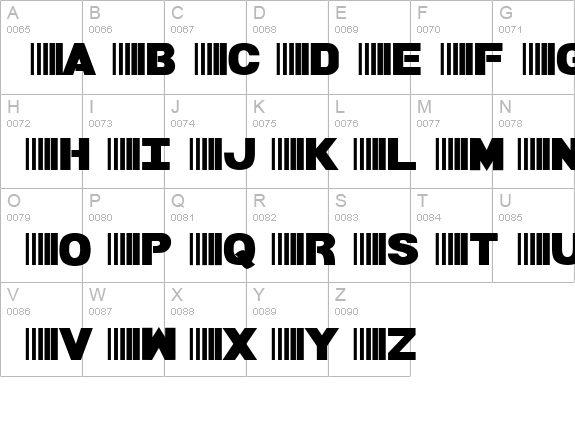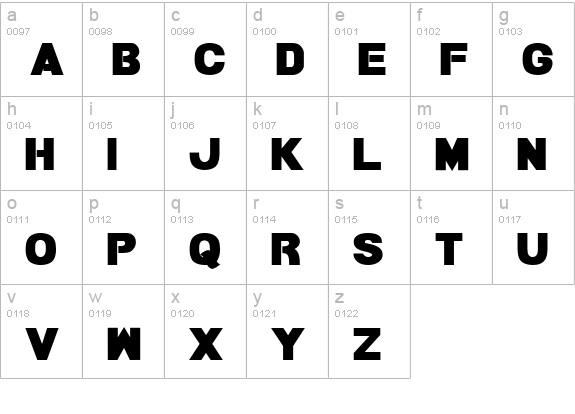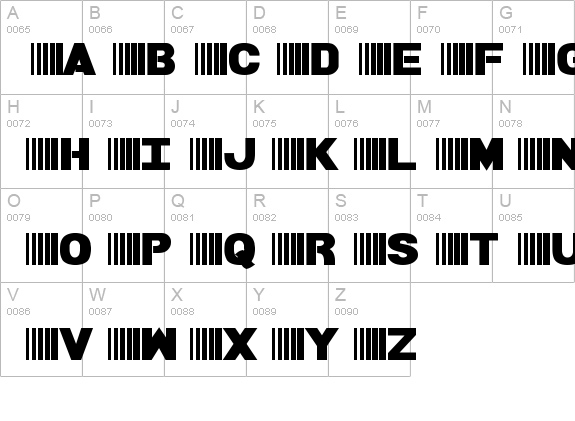
Bamf Bold is a strong, high-contrast variant in the Bamf typeface family \xE2\x80\x94 well suited to headlines, attention-grabbing titles, and strong calls-to-action.
Introducing Bamf Bold font, a sleek and modern typeface that exudes confidence and strength. With its bold and distinctive letterforms, Bamf Bold is the perfect choice for making a statement in your design projects. Whether you're creating a logo, poster, or heading, this font will instantly grab attention and leave a lasting impression. What's even better is that Bamf Bold is available for free download at FontsMarket.com. That's right, you can easily access this powerful font and elevate your designs without breaking the bank. Don't miss out on the opportunity to add Bamf Bold to your font collection and take your creations to the next level. Download it now and let your creativity shine with this impressive typeface.